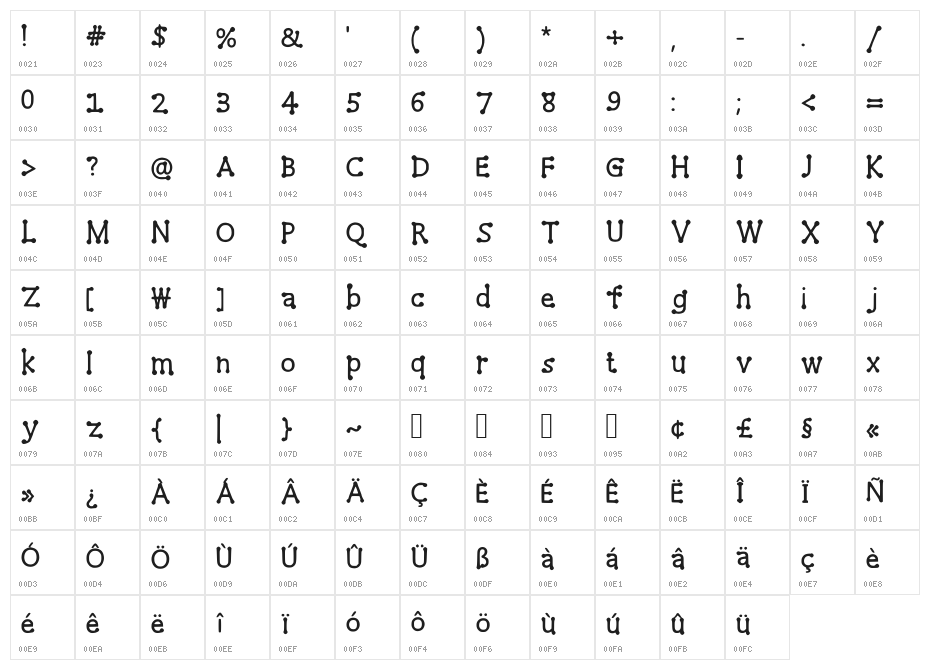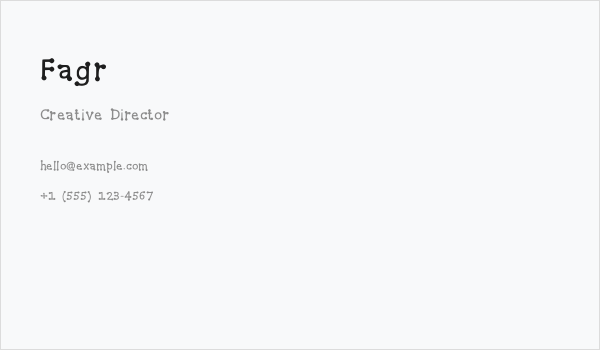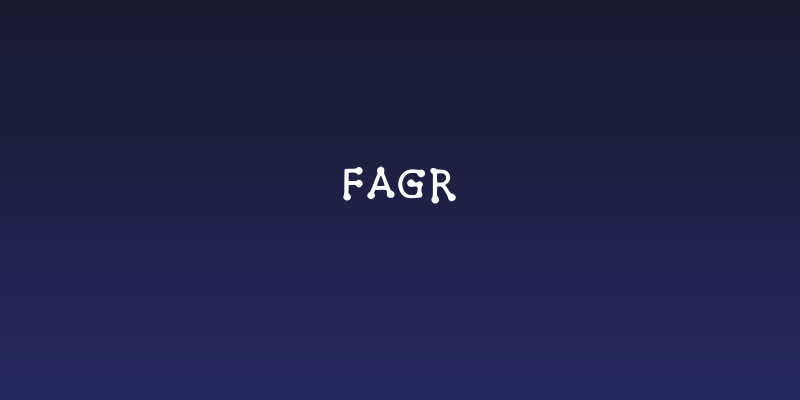
Fagr Font
Fagr Description
This font features a playful and unique design with rounded terminals and a bold presence. The characters are evenly spaced, providing a balanced and cohesive look. The uppercase and lowercase letters maintain a consistent style, with a slight whimsical touch that adds character. Numbers and special characters follow the same design principles, ensuring uniformity across all glyphs. The font's boldness and distinctive style make it suitable for creative and eye-catching designs.